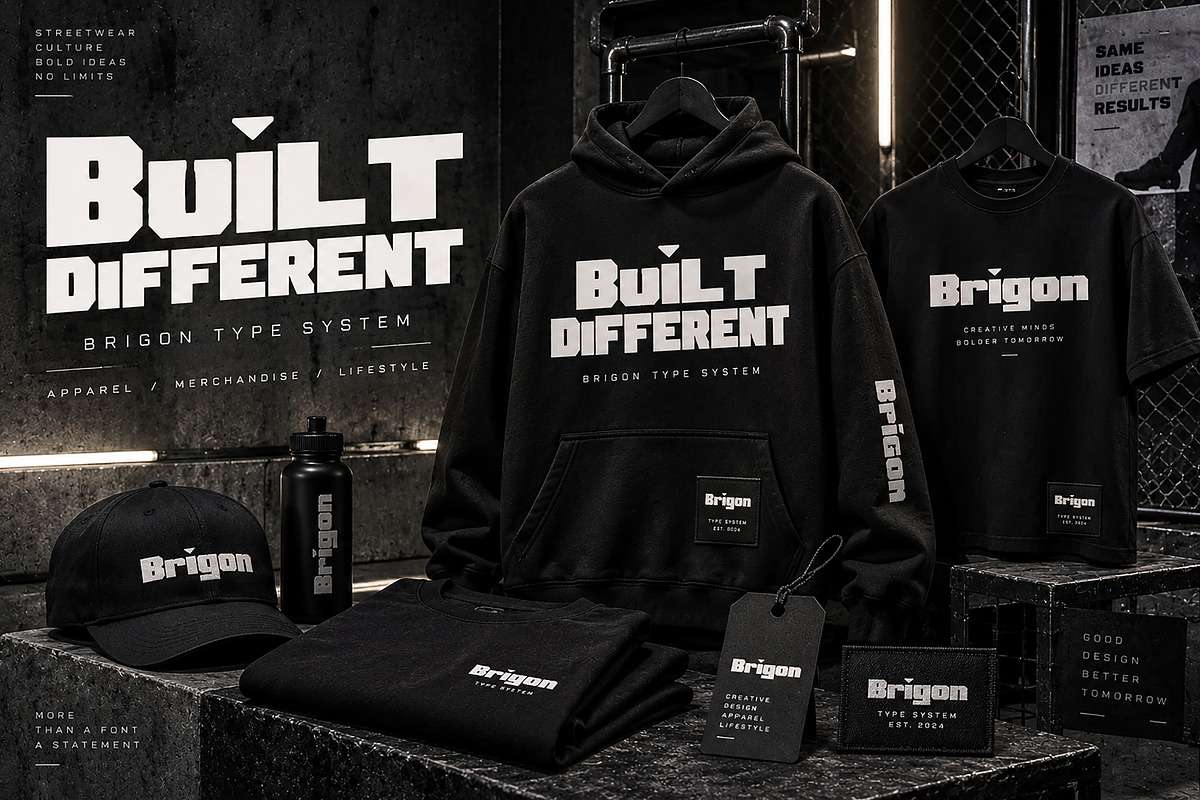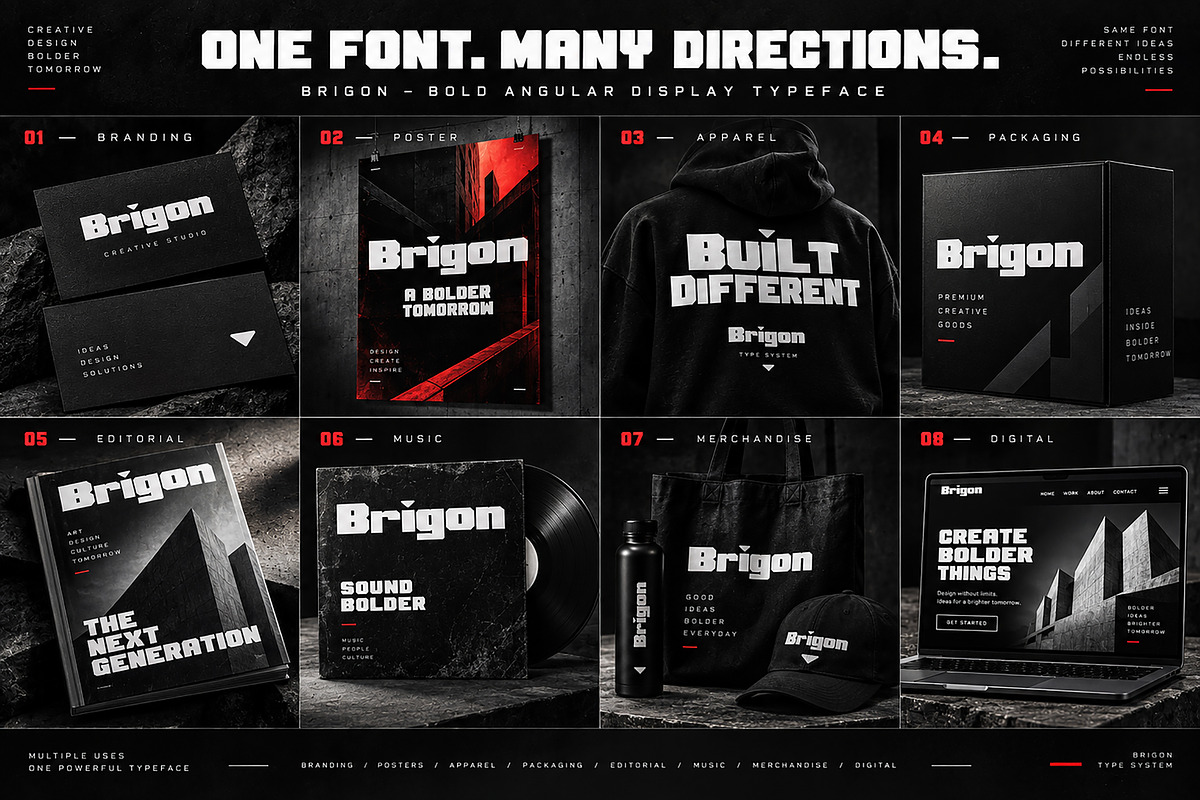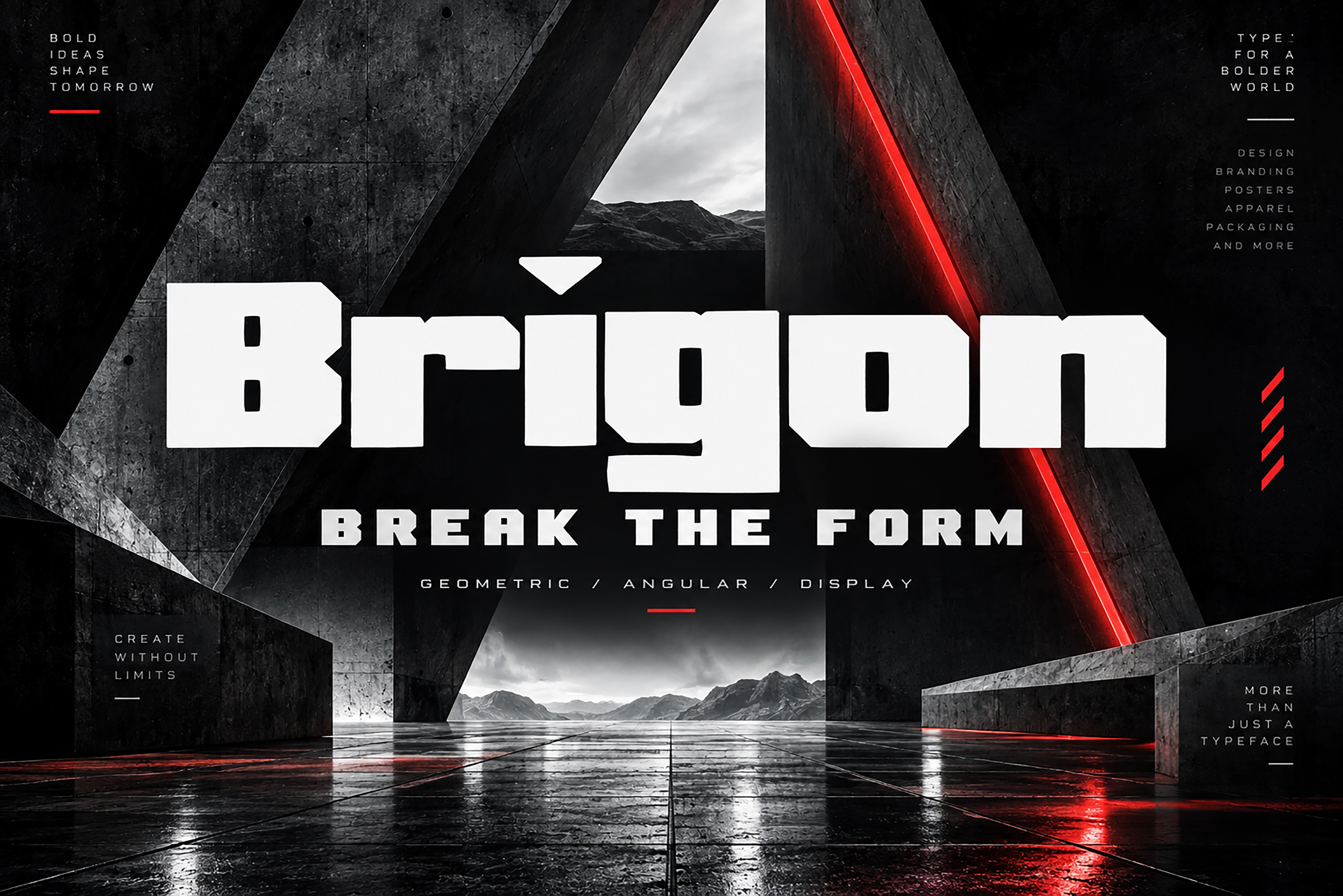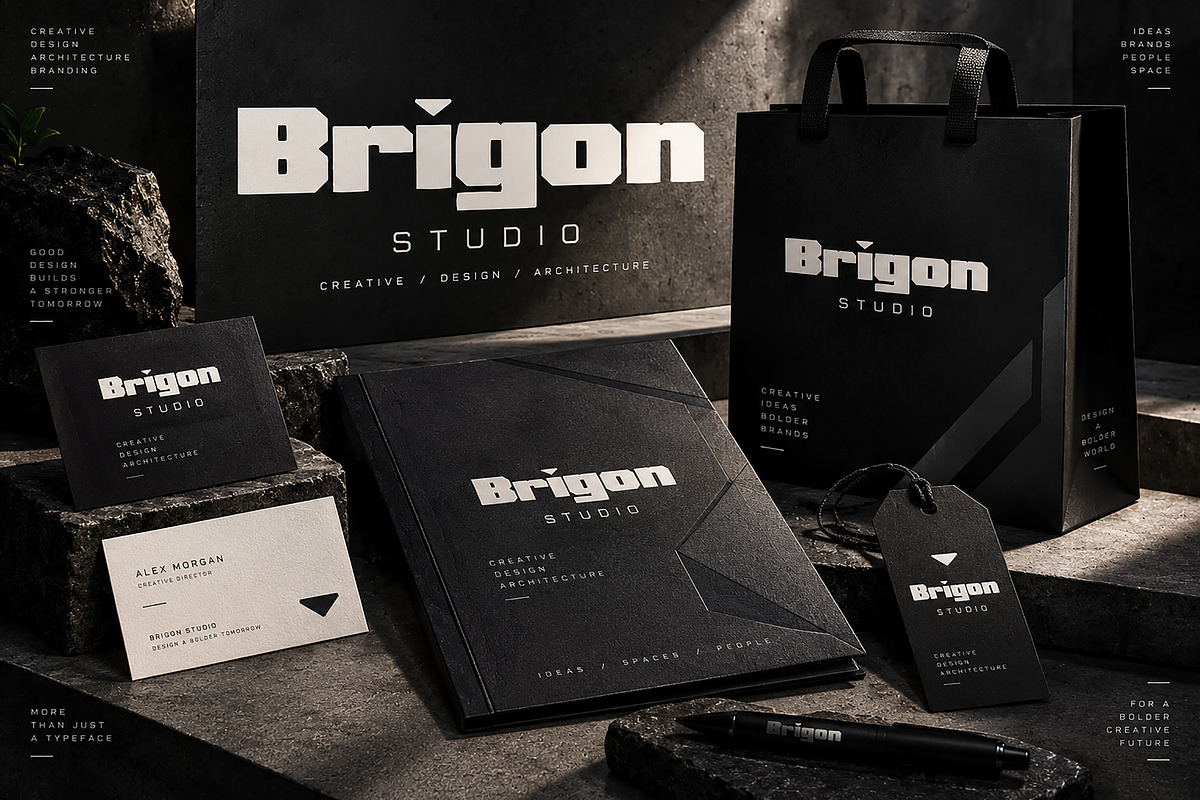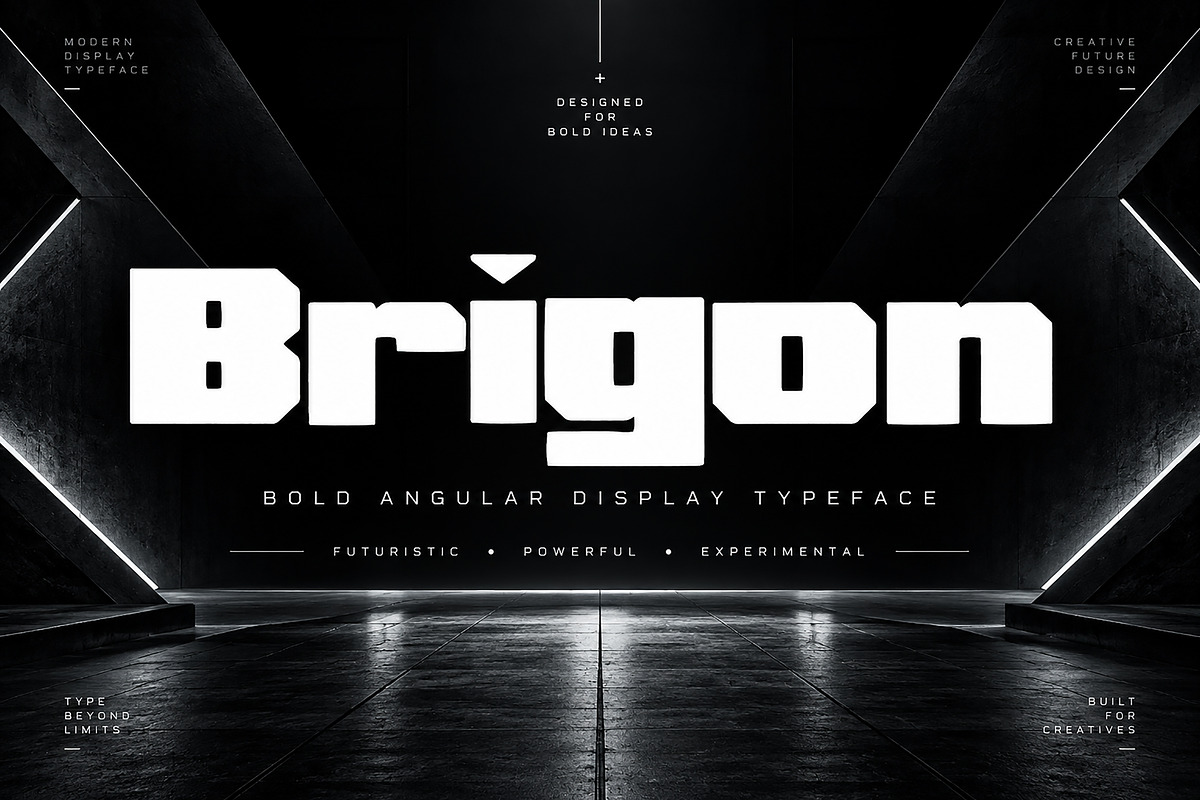
Brigon — Bold Display Typeface
Brigon — Bold Angular Display Typeface
Brigon is a bold and distinctive angular display typeface designed to bring a powerful geometric character to modern creative projects. Its strong block shapes, sharp cuts, and experimental construction create an energetic visual style that works especially well when you want typography to become the main design element.
Perfect for designers looking to create striking posters, streetwear graphics, branding, packaging, editorial layouts, album artwork, merchandise, titles, labels, and digital designs.
Brigon is designed to make headlines stand out with a strong contemporary and industrial-inspired personality. Use it for large display text, logos, campaign graphics, fashion collections, creative identities, and other projects that need a bold typographic presence.
Branding & Logo Design
Posters & Advertising
Streetwear & Apparel
T-Shirt & Hoodie Designs
Packaging & Product Design
Album & Music Artwork
Editorial & Magazine Covers
Merchandise & Labels
Badges & Stickers
Digital & Social Media Graphics
Creative Campaigns
Headlines & Display Typography
Font Name: Brigon
Style: Bold Angular Display Typeface
Type: Display Font
Brigon — Bold shapes. Sharp angles. Strong visual impact.